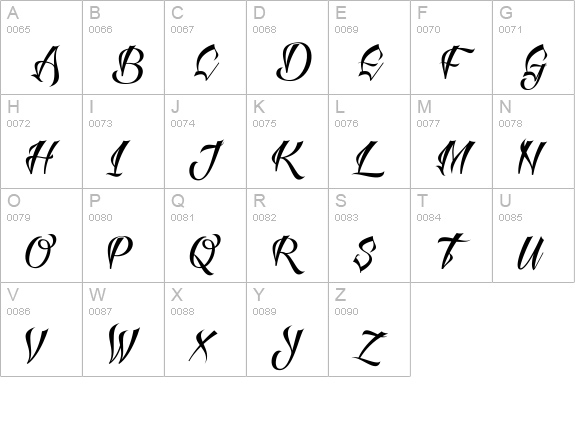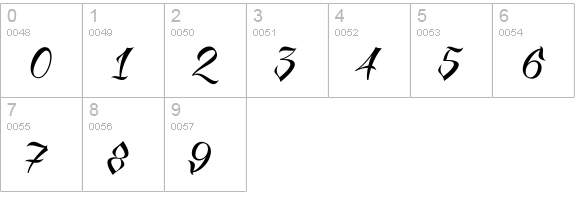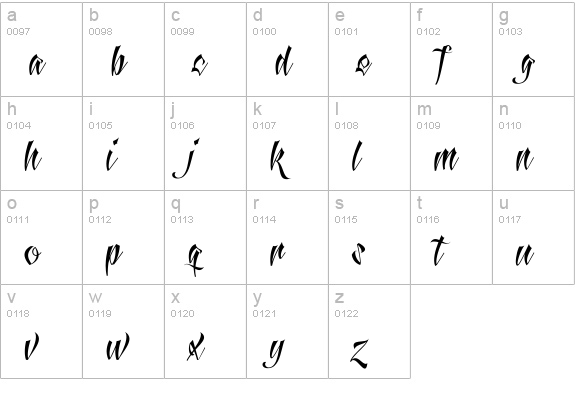
Antlers Demo Font Details
Introducing Antlers Demo, a stunning and versatile font that will elevate your designs to new heights. This unique typeface showcases a perfect balance between elegance and playfulness, making it suitable for a wide range of projects. With its graceful curves and intricate details, Antlers Demo adds a touch of sophistication to any design. Whether you're creating logos, headlines, posters, or branding materials, this font will effortlessly capture attention and leave a lasting impression. What sets Antlers Demo apart is not only its impeccable design, but also its accessibility. We are thrilled to announce that this font is available for free download at FontsMarket.com. Now, you can enjoy the beauty and versatility of Antlers Demo without any cost. Whether you're a professional designer, a student, or simply someone who loves experimenting with typography, Antlers Demo is a must-have addition to your font collection. Its extensive character set, including uppercase and lowercase letters, numerals, punctuation, and special symbols, ensures that you have everything you need to bring your creative visions to life. Download Antlers Demo today from FontsMarket.com and unlock a world of design possibilities. Unleash your creativity and let this font be the perfect companion for all your artistic endeavors. Don't miss out on this incredible opportunity to own a top-quality font that is both visually captivating and freely available.